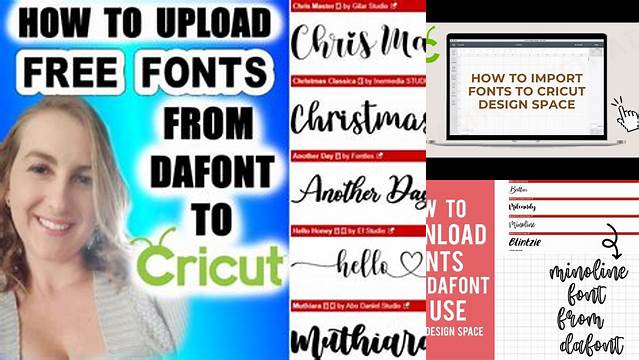
Dafont & Cricut: Font Magic In Design Space
Hey crafters! Ever feel like your Cricut projects are missing that special something? Chances are, it's the fonts! The right font can take your design from 'meh' to magnificent, and that's where Dafont comes in. Dafont is a treasure trove of fonts, many of them free for personal use, and combining it with Cricut Design Space is a game-changer. In this guide, we're diving deep into the world of Dafont and Cricut Design Space, showing you how to find, download, and use the perfect fonts for all your creative endeavors. Let's get started, guys!
1. Understanding Dafont's Font Library
Okay, so first things first: what is Dafont? Simply put, it's a website brimming with thousands upon thousands of fonts. Seriously, the selection is HUGE! From elegant scripts to bold display fonts, there's something for every project and every style. But navigating this vast library can feel a bit overwhelming at first. Dafont organizes its fonts into categories like Fancy, Foreign look, Techno, Gothic, Basic, Script, and more. This makes it easier to narrow down your search. If you're looking for a spooky font for Halloween, the 'Gothic' category is your friend. Need something whimsical for a birthday card? Check out the 'Script' or 'Fancy' categories. The best part? Many of these fonts are free for personal use, meaning you can use them for your personal projects without spending a dime. However, it's crucial to check the license for each font before using it for commercial purposes. More on that later!
7. Commercial Use Fonts: What You Need to Know
So, you're ready to take your crafting to the next level and sell your amazing creations? That's awesome! But before you slap a free-for-personal-use font on your products, let's talk commercial use. Commercial use means using a font for any project that generates income, whether it's selling physical products, creating logos, designing websites, or anything else that brings in the moolah. When it comes to commercial use, you need to make sure you have the proper license. Using a font commercially without a license is a copyright infringement, and it can lead to legal trouble. There are several ways to obtain commercial use fonts. Some fonts on Dafont are marked as '100% Free,' which means they're free for both personal and commercial use. However, these are less common. The most common way to get commercial use fonts is to purchase a license. Font licenses vary in price and terms, so it's important to read the fine print. Some licenses allow you to use the font on a certain number of products, while others have unlimited usage. Some licenses cover web use, while others are for print only. If you're unsure about a font's license, it's always best to contact the font designer or foundry directly. They can provide clarification and help you choose the right license for your needs. Don't risk it – always get the right license!
8. Finding Free Fonts for Commercial Use
Okay, let's say you're on a budget (who isn't?) and you're looking for free fonts that you can use commercially. Good news! They do exist! It just takes a little more digging to find them. While Dafont has a section for '100% Free' fonts, these can be limited. There are other websites that specialize in offering free fonts for commercial use. Some popular options include Google Fonts, Font Squirrel, and Creative Fabrica (which often has free font bundles). When searching for free fonts for commercial use, always double-check the license. Just because a website claims a font is free doesn't always mean it's free for every purpose. Look for terms like 'Open Font License (OFL)' or 'Free for commercial use.' If you're still unsure, contact the font designer. Another tip is to build your own font library over time. As you start earning money from your crafting business, consider investing in a few high-quality commercial use fonts. This will give you more flexibility and variety in your designs. Remember, using the right fonts can make a huge difference in the look and feel of your projects, so it's worth the effort to find the perfect ones. And always, always respect font licenses!
9. Best Font Pairings for Cricut Projects
Alright, you've got a ton of fonts, but how do you choose the right ones? Font pairing is an art, and it can make or break your design. The goal is to choose fonts that complement each other, creating a balanced and visually appealing look. A good rule of thumb is to pair a display font with a simpler font. Display fonts are those fancy, decorative fonts that are great for headings and titles. Simpler fonts, like sans-serif fonts, are easier to read in body text. For example, you could pair a script font like 'Brush Script' with a sans-serif font like 'Arial' or 'Helvetica.' The script font adds a touch of elegance, while the sans-serif font keeps the text legible. Another tip is to consider the mood of your project. If you're creating a fun, playful design, you might choose a quirky display font paired with a rounded sans-serif. If you're creating a more formal design, you might opt for a classic serif font paired with a simple sans-serif. There are tons of resources online that offer font pairing suggestions. Websites like Canva and Creative Market have blog posts and articles dedicated to font pairing. Experiment with different combinations and see what looks best for your project. Don’t be afraid to mix and match – you might discover some amazing combinations!
10. Kerning and Letter Spacing in Design Space
Okay, let's get a little technical for a second. You've chosen your fonts, you've typed your text, but something still looks... off. Chances are, it's the kerning and letter spacing. Kerning is the adjustment of the space between individual letters, while letter spacing is the adjustment of the space between all letters in a word or phrase. Proper kerning and letter spacing are crucial for creating legible and visually appealing text. Some fonts have built-in kerning, but others require manual adjustments. In Cricut Design Space, you can adjust kerning and letter spacing using the 'Letter Space' tool. This tool allows you to increase or decrease the space between letters, both individually and as a whole. If your letters are too close together, they might look crowded and difficult to read. If they're too far apart, the text might look disjointed. The goal is to find a balance where the letters are evenly spaced and the text flows smoothly. Pay close attention to letter pairs like 'AV,' 'WA,' and 'To,' as these often require kerning adjustments. Experiment with different settings until you achieve the desired look. Good kerning and letter spacing can elevate your designs from amateur to professional, so it’s worth taking the time to get it right.
11. Using Glyphs and Special Characters
Want to add a little extra oomph to your designs? Then you need to explore the world of glyphs and special characters! Glyphs are alternate characters and decorative elements that are included in many fonts. They can include swashes, flourishes, ligatures, and other fancy details that can add a unique touch to your text. Special characters include symbols, punctuation marks, and other non-letter characters. Not all fonts include glyphs, but many script and display fonts do. To access glyphs in Cricut Design Space, you'll need to use a character map program. On Windows, you can use the built-in 'Character Map' tool. On a Mac, you can use the 'Font Book' application. These programs allow you to browse the glyphs available in a font and copy them to your clipboard. Once you've copied a glyph, you can paste it into Cricut Design Space. Using glyphs can be a bit tricky at first, but it's worth the effort. They can add a touch of elegance, whimsy, or personality to your designs. Experiment with different glyphs and special characters to see what works best for your project. Remember, a little goes a long way – don't overdo it!
12. Welding Script Fonts in Cricut Design Space
Script fonts are gorgeous, but they can present a challenge in Cricut Design Space. Because script fonts are designed to connect letters seamlessly, they often appear disjointed when you type them in Design Space. This is because each letter is treated as an individual object, rather than a continuous word. The solution? Welding! Welding is a process that combines overlapping shapes into a single shape. In the case of script fonts, welding connects the letters so they flow together smoothly, just like they're supposed to. To weld script fonts in Cricut Design Space, first type your text. Then, adjust the letter spacing so the letters are touching each other. Next, select your text and click the 'Weld' button in the bottom right corner of the screen. This will combine the letters into a single shape. Important note: Once you weld text, you can't edit it anymore! So, make sure you're happy with the spelling and spacing before you weld. If you need to make changes after welding, you'll need to start over. Welding script fonts is a crucial step in creating professional-looking designs. It ensures that your text looks polished and seamless.
13. Font Size and Readability Considerations
Okay, you've got your fonts paired, your kerning is on point, and your glyphs are dazzling. But have you thought about font size and readability? No matter how beautiful your fonts are, if they're too small or difficult to read, your design will fall flat. When choosing a font size, consider the size of your project and the distance from which it will be viewed. For large projects like banners or signs, you'll need larger fonts that can be easily read from a distance. For smaller projects like cards or labels, you can use smaller fonts, but make sure they're still legible. Readability is also crucial. Some fonts, particularly decorative or script fonts, can be difficult to read in small sizes. If you're using a decorative font, use it sparingly and pair it with a simpler font for the main text. When in doubt, test your design. Print out a sample or cut a small version on your Cricut to see how the text looks in real life. It's always better to catch readability issues early on, before you've wasted time and materials on a full project. Good font size and readability are essential for creating designs that are both beautiful and functional.
14. Creating Font Effects in Design Space (Bold, Italic, etc.)
Want to add some flair to your fonts? Cricut Design Space offers a few basic font effects that can help you customize your text. The most common effects are bold and italic. Not all fonts have bold and italic versions, but if they do, you can access them using the font style dropdown menu in Design Space. Bold makes the font thicker and more prominent, while italic slants the font to the right. These effects can be useful for emphasizing certain words or phrases, or for creating a more dynamic design. In addition to bold and italic, you can also underline text in Design Space. This effect is less common, but it can be useful for drawing attention to specific words. For more advanced font effects, you might need to use a graphic design program like Adobe Illustrator or Inkscape. These programs offer a wider range of options, such as shadows, outlines, and gradients. However, for most basic projects, the font effects in Cricut Design Space should be sufficient. Experiment with different effects to see what looks best for your project. Just remember not to overdo it – too many effects can make your design look cluttered and overwhelming.
15. Uploading and Using Your Own Fonts in Cricut Design Space
We've talked a lot about downloading fonts from Dafont, but what if you have a font that's not on Dafont? Or maybe you've even created your own font? Good news! Cricut Design Space allows you to upload and use your own fonts. This gives you even more flexibility and creativity in your designs. To upload a font to Design Space, first make sure the font file is in a supported format (.ttf or .otf). Then, open Design Space and click on the 'System Fonts' filter in the font dropdown menu. At the top of the font list, you should see an 'Upload Font' button. Click this button and select the font file from your computer. Design Space will then install the font, making it available for use in your projects. Uploading your own fonts is a great way to add a personal touch to your designs. You can use fonts you've purchased from other websites, fonts you've downloaded from free font sites, or even fonts you've created yourself. Just remember to respect font licenses, even for fonts you've uploaded yourself. If you're planning to use a font commercially, make sure you have the appropriate license. Uploading your own fonts opens up a whole new world of creative possibilities in Cricut Design Space.
16. Font Design Software: Creating Your Own Fonts
Feeling adventurous? Want to take your font game to the next level? Then consider creating your own fonts! Font design can seem daunting at first, but with the right software and a little practice, you can create unique and personalized fonts that perfectly match your style. There are several font design software programs available, ranging from free to professional-grade. Some popular options include FontForge (free), BirdFont (free), Glyphs (paid), and FontLab Studio (paid). These programs allow you to draw each letterform, adjust the spacing and kerning, and export the font in a format that can be used in Cricut Design Space. Creating a font is a time-consuming process, but it's also incredibly rewarding. You have complete control over every aspect of the font, from the shape of the letters to the spacing between them. Creating your own fonts is a great way to express your creativity and develop a unique brand identity. If you're serious about font design, consider taking a class or watching online tutorials. There are many resources available to help you learn the basics of font design. Once you've created your own font, you can upload it to Cricut Design Space and use it in all your projects. How cool is that?
17. Font Conversion Tools: Changing Font Formats
Sometimes you might encounter a font file that's in a format that's not compatible with Cricut Design Space. For example, you might have a font in .svg or .eot format. In these cases, you'll need to convert the font to a compatible format, such as .ttf or .otf. Fortunately, there are several font conversion tools available online. These tools allow you to upload a font file and convert it to a different format. Some popular font conversion tools include Online Font Converter, Convertio, and CloudConvert. These tools are generally easy to use – simply upload your font file, select the desired output format, and click the 'Convert' button. The converted font file will then be downloaded to your computer. Before using a converted font in Cricut Design Space, it's a good idea to test it to make sure it works correctly. Sometimes conversion errors can occur, which can result in a font that's distorted or doesn't display properly. If you encounter any issues, try converting the font again using a different tool. Font conversion tools are a handy resource for expanding your font library and ensuring that you can use any font in Cricut Design Space.
18. Font Organization and Management Tips
Okay, you've downloaded a ton of fonts from Dafont (and other places!), and your font library is starting to feel a little... chaotic? Don't worry, you're not alone! Font organization and management are crucial for keeping your sanity and finding the fonts you need when you need them. The first step is to create a font folder on your computer. This folder will be the central location for all your font files. Within this folder, you can create subfolders to categorize your fonts by style (e.g., script, sans-serif, display) or by project. Another helpful tip is to name your font files consistently. This will make it easier to find specific fonts in your library. For example, you might use a naming convention like 'FontName_Style' (e.g., 'BebasNeue_SansSerif'). You can also use a font management program to help you organize your fonts. These programs allow you to preview fonts, activate and deactivate fonts, and even tag fonts with keywords. Some popular font management programs include NexusFont (free) and FontBase (free). A well-organized font library will save you time and frustration in the long run. You'll be able to find the perfect font for your project quickly and easily, without having to scroll through a massive list of unorganized fonts. Trust us, a little organization goes a long way!
19. Backing Up Your Font Library
Imagine spending hours downloading and organizing your fonts, only to have your computer crash and lose everything! Nightmare scenario, right? That's why backing up your font library is so important. Backing up your fonts is the best way to protect your investment and ensure that you don't lose your valuable font collection. There are several ways to back up your fonts. One option is to copy your font folder to an external hard drive or USB drive. This is a simple and effective way to create a backup. Another option is to use a cloud storage service like Google Drive or Dropbox. These services allow you to upload your font folder to the cloud, where it will be safely stored and accessible from any device. You can also use a dedicated backup program to automate the backup process. These programs can automatically back up your fonts on a regular basis, ensuring that your backups are always up-to-date. No matter which method you choose, make sure you back up your fonts regularly. We recommend backing up your fonts at least once a month, or more often if you're downloading new fonts frequently. Losing your font library can be a major headache, so take the time to protect your investment.
20. Dafont Alternatives: Other Font Resources
Dafont is an amazing resource for fonts, but it's not the only game in town! There are many other Dafont alternatives that offer a wide variety of fonts, both free and paid. Exploring these alternatives can help you expand your font library and discover new and unique fonts. One popular alternative is Google Fonts. Google Fonts offers a vast collection of free fonts that are optimized for web use. These fonts are also free for commercial use, making them a great option for small businesses and entrepreneurs. Another popular alternative is Font Squirrel. Font Squirrel offers a curated collection of high-quality free fonts that are licensed for commercial use. This is a great resource for finding free fonts that you can use in your projects without worrying about licensing issues. Creative Fabrica is another popular option. Creative Fabrica offers a wide variety of fonts, graphics, and other design resources, both free and paid. They often have great deals on font bundles, which can be a cost-effective way to expand your font library. Other Dafont alternatives include MyFonts, Adobe Fonts, and HypeForType. Each of these resources offers a unique selection of fonts, so it's worth exploring them all to find the perfect fonts for your needs. Don’t limit yourself to just one source – the more you explore, the more gems you’ll find!
21. Font Bundles: A Cost-Effective Way to Expand Your Library
Speaking of cost-effective ways to expand your font library, let's talk about font bundles! Font bundles are collections of fonts that are sold together at a discounted price. This can be a great way to get a lot of fonts for a fraction of the cost of buying them individually. Font bundles are often themed, such as script fonts, display fonts, or holiday fonts. This can be helpful if you're looking for a specific type of font. Many websites offer font bundles, including Creative Fabrica, Design Cuts, and The Hungry JPEG. These websites often have limited-time offers on font bundles, so it's worth checking them regularly. When buying a font bundle, it's important to check the licensing terms. Make sure the fonts in the bundle are licensed for commercial use if you plan to use them in your business. It's also a good idea to preview the fonts in the bundle before you buy it. Most websites will allow you to download a sample of each font so you can see what it looks like. Font bundles can be a great way to build your font library on a budget. Just be sure to do your research and choose bundles that offer high-quality fonts with the appropriate licenses.
22. Working with Monogram Fonts in Cricut Design Space
Monogram fonts are a classic choice for personalizing projects, from apparel to home décor. Working with monogram fonts in Cricut Design Space can add a touch of elegance and personalization to your creations. Monogram fonts typically consist of three letters, representing the initials of a name. The center letter is usually larger than the two outer letters. In Cricut Design Space, you can create monograms using a variety of fonts, including specialized monogram fonts. These fonts often have decorative elements or interlocking letters. To create a monogram, first type your initials in Cricut Design Space. Then, select a monogram font from your font library. Adjust the size and spacing of the letters as needed. You may need to ungroup the letters and move them individually to achieve the desired look. For a classic monogram, the center initial should be larger than the outer initials. You can also add decorative elements, such as circles or frames, around your monogram. Monograms are a versatile design element that can be used on a wide variety of projects. They're perfect for personalizing gifts, creating custom apparel, or adding a touch of elegance to your home décor. Experiment with different monogram fonts and styles to find the perfect look for your project.
23. Designing with Handwritten Fonts
Handwritten fonts bring a personal and authentic touch to any project. Designing with handwritten fonts in Cricut Design Space can create a warm and inviting feel. These fonts mimic the look of actual handwriting, adding a unique charm to your designs. When selecting a handwritten font, consider the overall tone of your project. Some handwritten fonts are casual and playful, while others are more elegant and refined. For a rustic or vintage look, choose a font with a slightly rough or imperfect appearance. For a more modern look, opt for a clean and legible handwritten font. In Cricut Design Space, you can use handwritten fonts for a variety of projects, such as cards, invitations, and personalized gifts. These fonts are also great for adding a personal touch to home décor items, such as signs and wall decals. When working with handwritten fonts, pay attention to the spacing and kerning of the letters. You may need to adjust the letter spacing to ensure that the text flows smoothly. Welding script fonts is often necessary to connect the letters properly. Experiment with different handwritten fonts and styles to find the perfect one for your project. Remember, the goal is to create a design that looks authentic and personal.
24. Creating Text-Based Designs for T-Shirts
Text-based designs are a popular choice for T-shirts, offering a simple yet impactful way to express yourself. Creating text-based designs for T-shirts in Cricut Design Space allows you to personalize your apparel with your favorite quotes, slogans, or names. When designing a text-based T-shirt, font choice is crucial. The font should be legible and reflect the overall message or style of the design. For a bold and impactful look, choose a strong sans-serif font. For a more playful or casual design, opt for a handwritten or script font. Consider the size and placement of the text on the T-shirt. The text should be large enough to be easily read, but not so large that it overwhelms the design. Placement is also important – consider centering the text, aligning it to the left or right, or placing it diagonally across the T-shirt. In Cricut Design Space, you can use a variety of techniques to enhance your text-based designs. Experiment with different font effects, such as bold, italic, or outline. You can also add shapes or graphics to complement the text. When cutting your design with your Cricut, make sure to mirror the image if you're using heat transfer vinyl. This will ensure that the design is oriented correctly when you iron it onto the T-shirt. Text-based T-shirts are a fun and easy way to express your personality and creativity. With the right font and design techniques, you can create unique and stylish apparel.
25. Designing Monograms for Gifts and Personalization
Monograms are a timeless and elegant way to personalize gifts and other items. Designing monograms for gifts and personalization in Cricut Design Space allows you to create custom and meaningful presents for your loved ones. When designing a monogram, consider the style and personality of the recipient. A classic monogram with a serif font is a great choice for a traditional or formal gift. For a more modern or playful gift, opt for a monogram with a sans-serif or script font. The traditional monogram format consists of three letters, with the center letter representing the last name and being larger than the two outer letters. However, you can also create monograms with just one or two letters. In Cricut Design Space, you can use a variety of techniques to enhance your monograms. Add decorative elements, such as frames, circles, or flourishes. Experiment with different colors and materials to create a unique and personalized design. Monograms can be used on a wide variety of items, including apparel, home décor, accessories, and stationery. They're a perfect way to add a personal touch to any gift or project. Consider the size and placement of the monogram on the item. A small, subtle monogram is a great choice for a delicate item, while a larger, bolder monogram can make a statement on a larger item. Designing monograms is a fun and rewarding way to create personalized gifts that will be cherished for years to come.
26. Using Fonts to Create Stencils
Stencils are a versatile tool for adding designs to a variety of surfaces. Using fonts to create stencils in Cricut Design Space opens up a world of creative possibilities. You can create custom stencils with your favorite quotes, names, or designs. When creating a stencil with fonts, choose fonts that have clear and distinct letter shapes. Avoid fonts that are too thin or intricate, as these may be difficult to cut and use as stencils. Sans-serif fonts are often a good choice for stencils, as they have clean lines and simple shapes. In Cricut Design Space, type your desired text and select a suitable font. Adjust the size and spacing of the letters as needed. To create a stencil, you'll need to create bridges or connections between the inner parts of the letters and the outer edges. This prevents the inner parts of the letters from falling out when you cut the stencil. You can create bridges by adding small shapes, such as rectangles or lines, to the design. Once you've created the bridges, cut the stencil with your Cricut using a stencil material, such as acetate or mylar. Stencils can be used on a wide variety of surfaces, including walls, furniture, fabric, and paper. They're a great way to add custom designs to your home décor, clothing, and craft projects. Using fonts to create stencils is a fun and easy way to personalize your projects and unleash your creativity.
27. Font Styles for Different Cricut Projects
The choice of font style can significantly impact the overall look and feel of your Cricut projects. Font styles for different Cricut projects should be carefully considered to achieve the desired aesthetic. For elegant and formal projects, such as wedding invitations or personalized stationery, consider using serif fonts or script fonts. Serif fonts have small decorative strokes at the ends of the letters, while script fonts mimic the look of handwriting. These font styles add a touch of sophistication and refinement. For more casual and modern projects, such as T-shirts or home décor items, sans-serif fonts are a great choice. Sans-serif fonts have clean lines and simple shapes, making them easy to read and versatile. Display fonts are bold and eye-catching fonts that are perfect for headings, titles, and logos. These fonts come in a wide variety of styles, from vintage to modern, and can add a unique touch to your projects. Handwritten fonts bring a personal and authentic feel to any project. These fonts mimic the look of actual handwriting and are great for cards, invitations, and personalized gifts. When choosing a font style for your Cricut project, consider the overall message or theme of the design. The font should complement the design and enhance its impact. Experiment with different font styles to find the perfect match for your project. Don't be afraid to mix and match font styles to create a unique and visually appealing design.
28. Font Trends in Cricut Design Space
Keeping up with font trends in Cricut Design Space can inspire fresh and contemporary designs. The world of fonts is constantly evolving, with new styles and trends emerging regularly. One current trend is the use of bold and chunky fonts. These fonts make a statement and are perfect for headings, titles, and logos. Another trend is the resurgence of retro and vintage fonts. These fonts evoke a sense of nostalgia and are great for projects with a vintage or rustic theme. Handwritten and script fonts continue to be popular choices for adding a personal touch to designs. Modern and minimalist fonts are also on the rise, offering a clean and sophisticated look. These fonts are characterized by their simplicity and legibility. When incorporating font trends into your Cricut projects, consider the overall style and message of the design. A trendy font can add a fresh and contemporary feel, but it's important to choose a font that complements the project and doesn't overwhelm the design. Experiment with different font combinations and styles to create unique and visually appealing designs. Pay attention to the fonts used by designers and brands you admire. This can provide inspiration and help you identify emerging font trends. Staying informed about font trends can help you create designs that are current, stylish, and impactful.
29. Font Psychology: Choosing Fonts that Convey the Right Message
Fonts are not just visual elements; they also communicate emotions and messages. Font psychology plays a crucial role in choosing fonts that convey the right message in your designs. Different font styles evoke different feelings and associations. Serif fonts, with their traditional and elegant appearance, often convey a sense of authority, trustworthiness, and professionalism. They are a great choice for projects that require a formal or sophisticated tone. Sans-serif fonts, with their clean and modern lines, often convey a sense of simplicity, efficiency, and innovation. They are a versatile choice for a wide range of projects, from websites to marketing materials. Script fonts, with their flowing and cursive style, often convey a sense of creativity, elegance, and femininity. They are perfect for invitations, cards, and personalized gifts. Display fonts, with their bold and eye-catching designs, often convey a sense of excitement, energy, and playfulness. They are great for headings, titles, and logos. When choosing fonts for your Cricut projects, consider the emotions and messages you want to convey. Select fonts that align with the overall tone and purpose of the design. Think about your target audience and the associations they may have with different font styles. By understanding font psychology, you can create designs that are not only visually appealing but also communicate effectively.
30. Advanced Font Techniques in Cricut Design Space
Once you've mastered the basics of working with fonts in Cricut Design Space, you can explore advanced font techniques to take your designs to the next level. One technique is contouring, which allows you to remove parts of a font to create unique and custom designs. You can use contouring to create silhouettes, outlines, or intricate patterns within your text. Another advanced technique is slicing, which allows you to cut shapes out of fonts or cut fonts out of shapes. This can be used to create layered designs, negative space effects, or custom monograms. Welding, as discussed earlier, is essential for connecting script fonts, but it can also be used to combine different font elements or create custom shapes. Letter spacing and kerning adjustments are crucial for fine-tuning the appearance of your text. Experiment with these settings to create perfectly spaced and legible designs. Using glyphs and special characters can add a touch of elegance or whimsy to your fonts. Explore the glyph options available in your fonts to discover unique and decorative elements. When working with advanced font techniques, it's helpful to break down your designs into smaller steps and experiment with different approaches. Don't be afraid to try new things and push the boundaries of what's possible. With practice and creativity, you can create stunning and original font designs in Cricut Design Space.